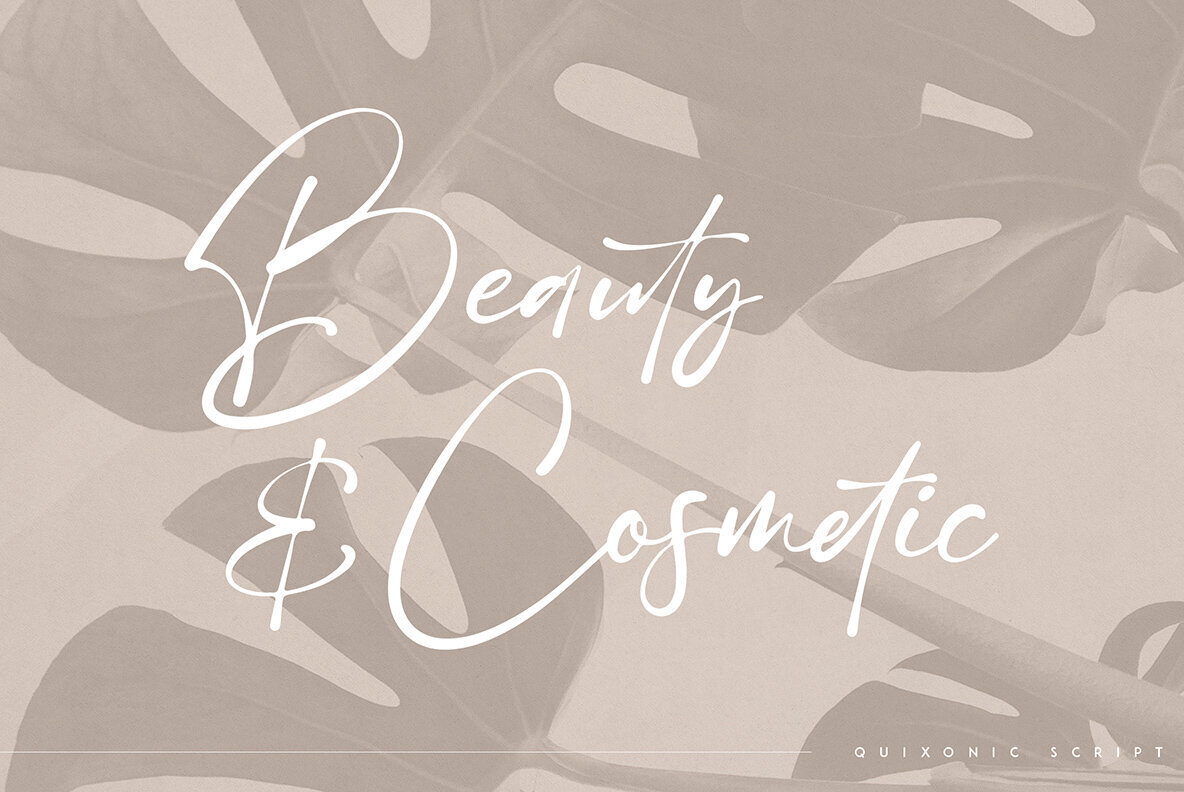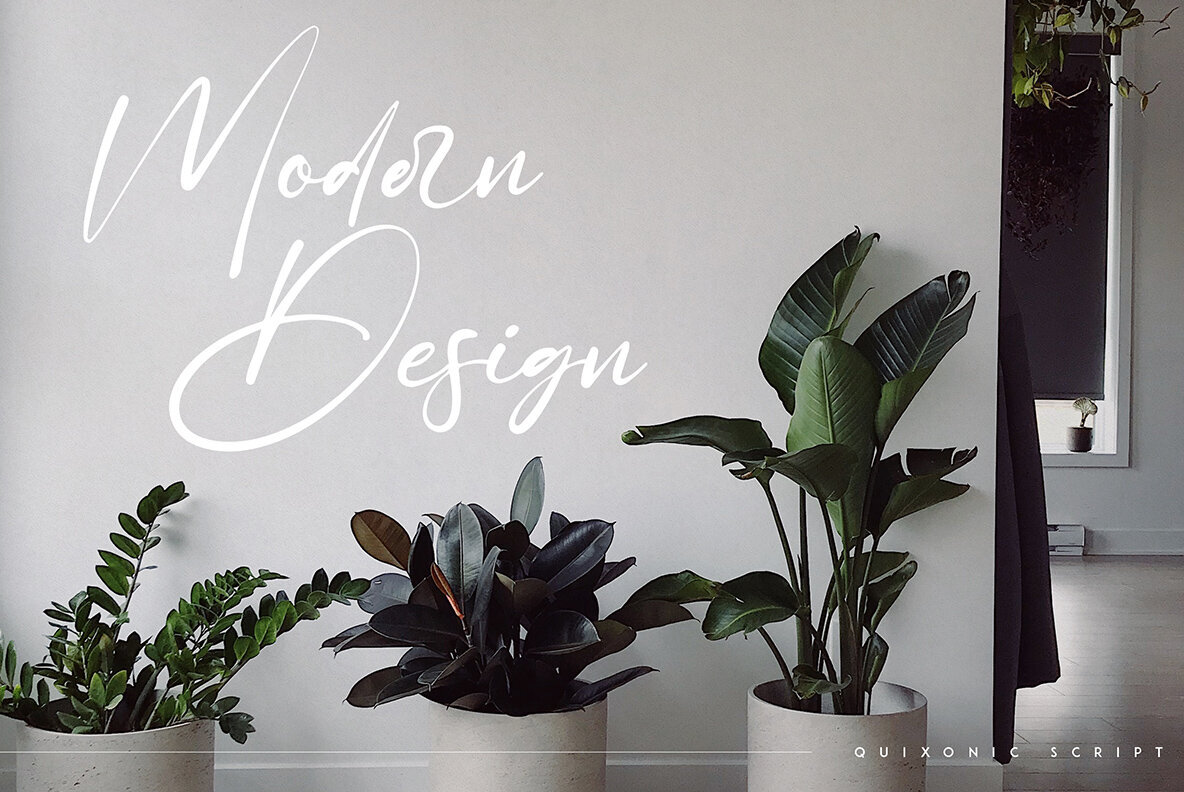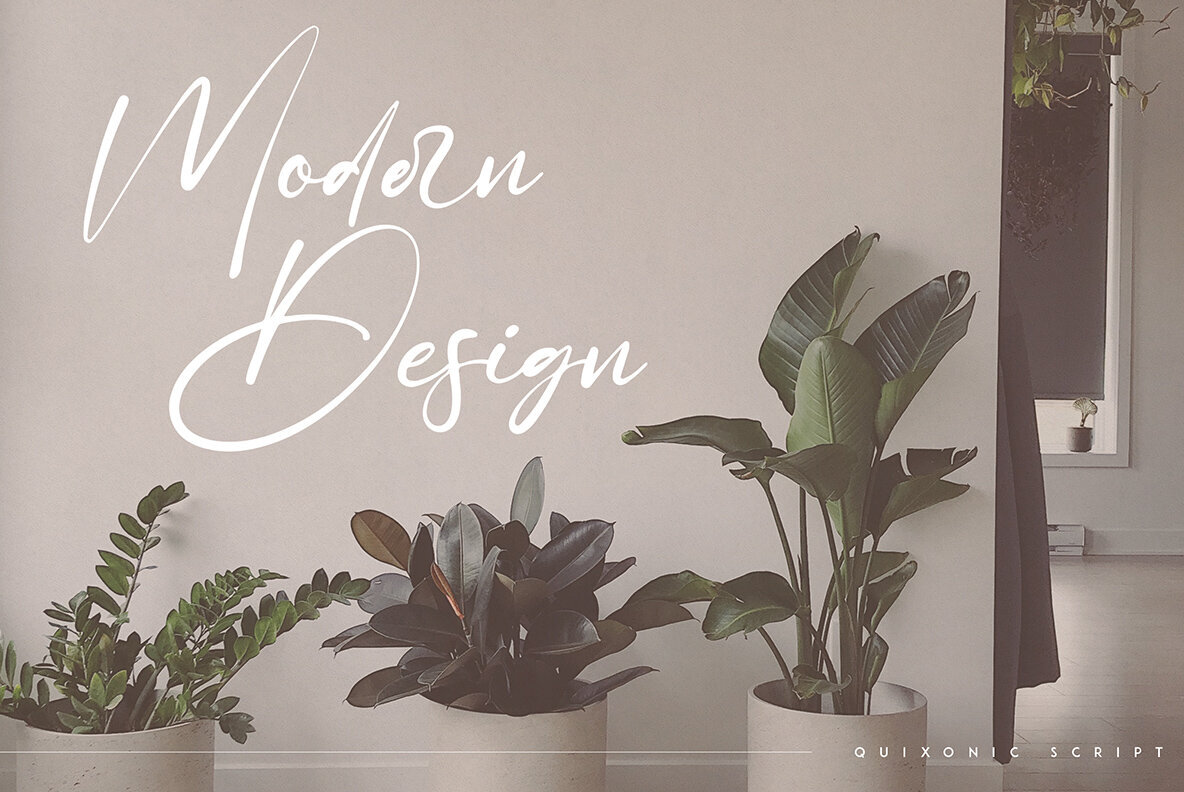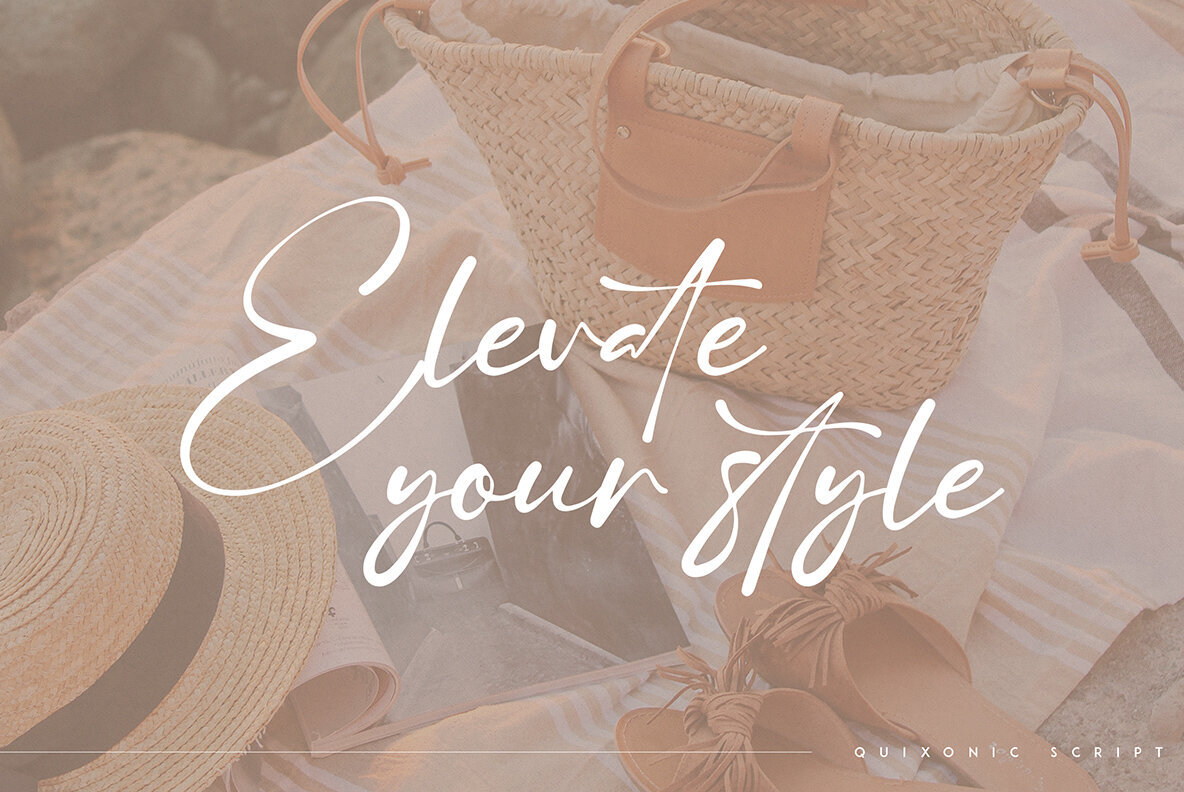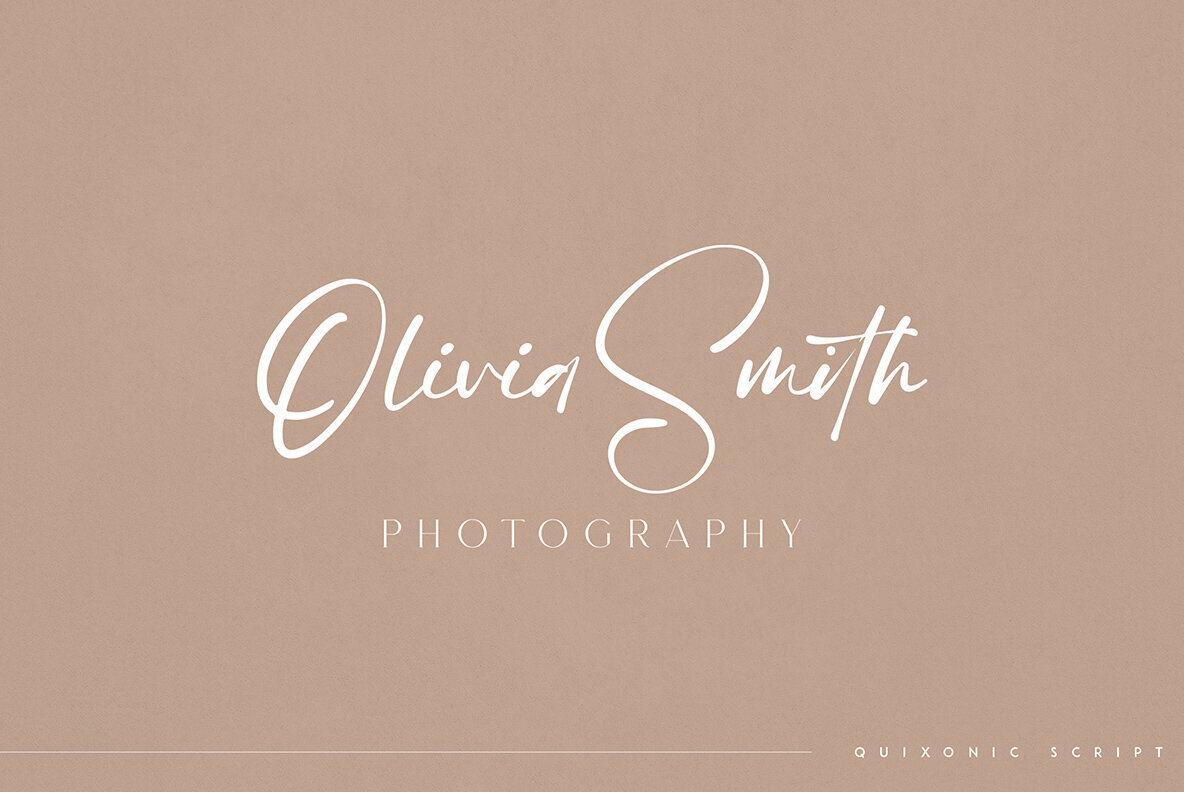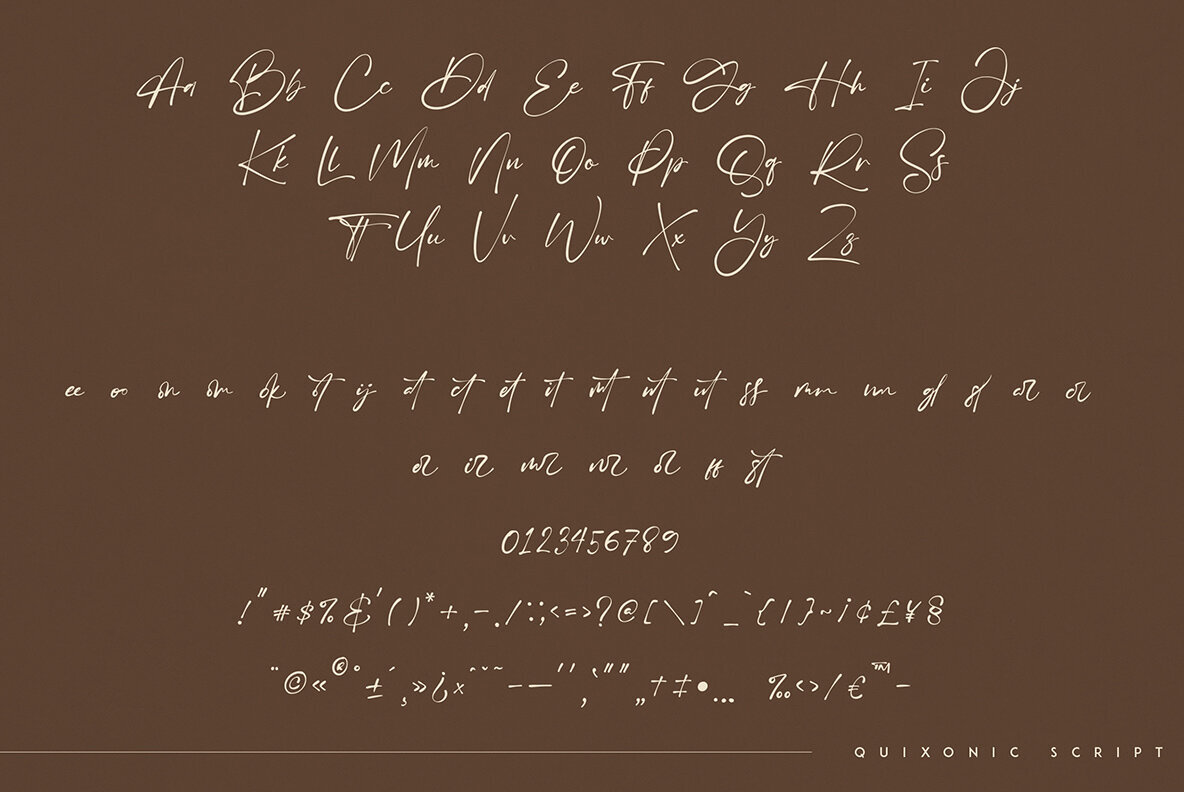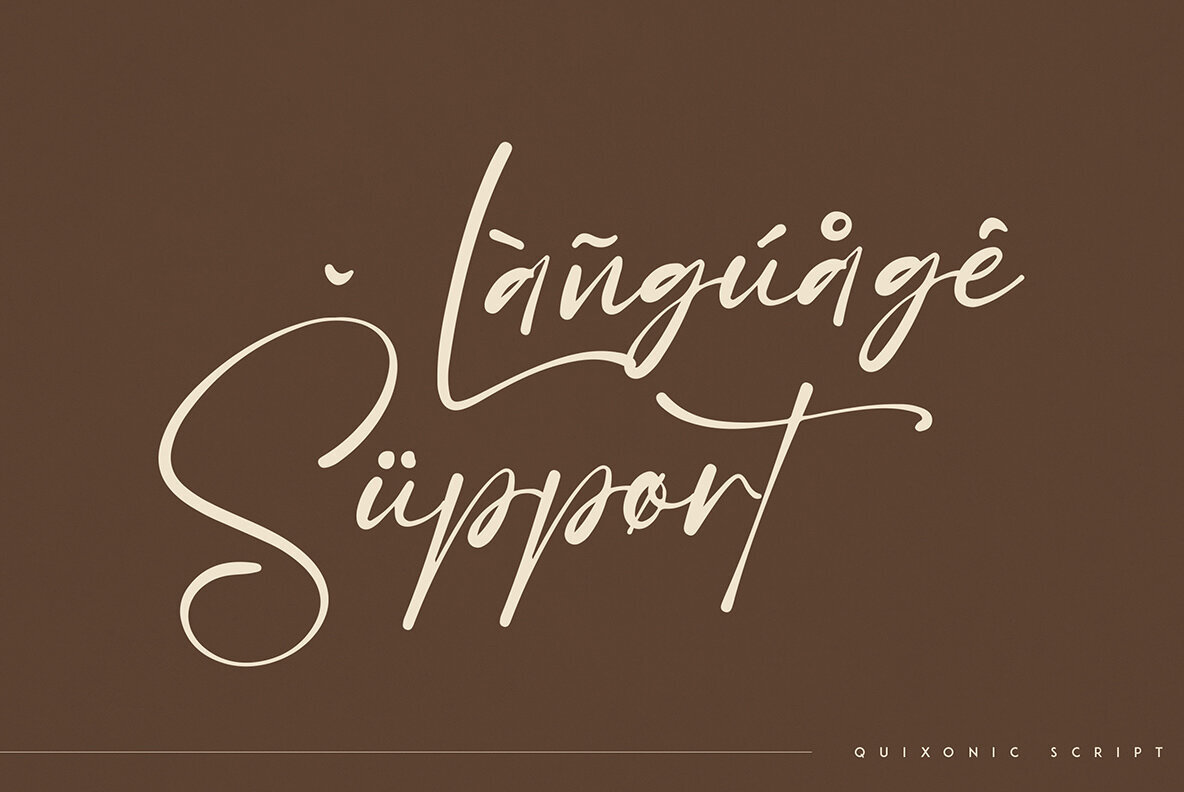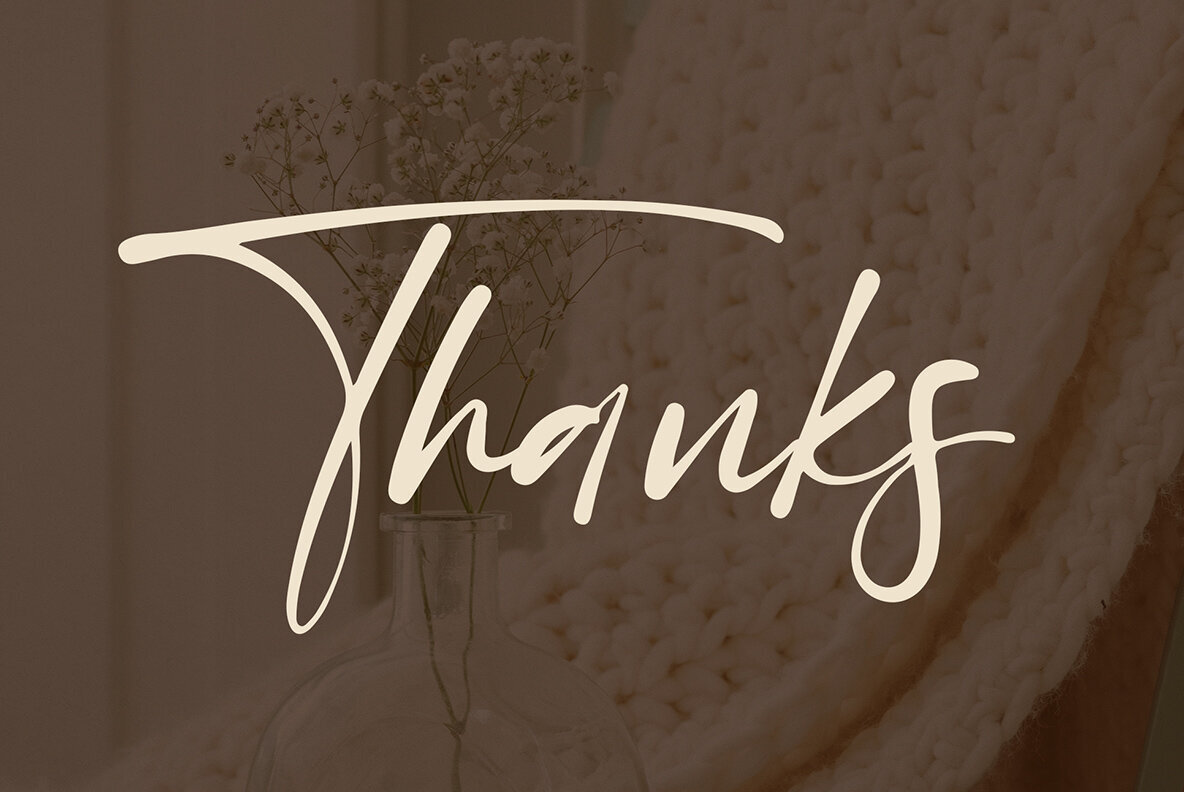
Quixotic Font
Quixotic Regular
Quixotic is a quintessential handmade and organic script font. This versatile typeface, rich with ligature glyphs and multilingual support, performs admirably across various applications. Its organic nature allows it to impress in both large and small sizes, making it a favorite among creative projects. Whether you're working on branding projects, homeware designs, or product packaging, Quixotic fits seamlessly into your design scheme. Its stylish and fluid form also makes it an excellent choice for magazine headers or as an elegant text overlay on any background image.Quixotic: Organic Script Loaded with Ligatures